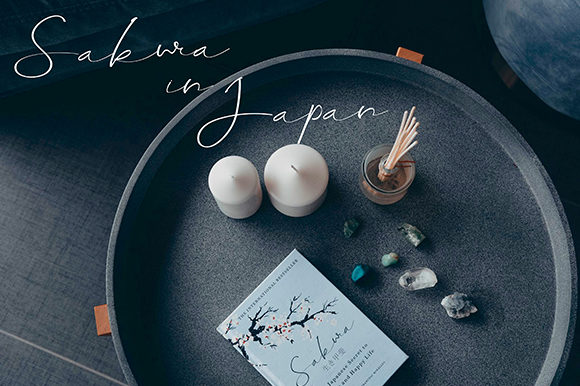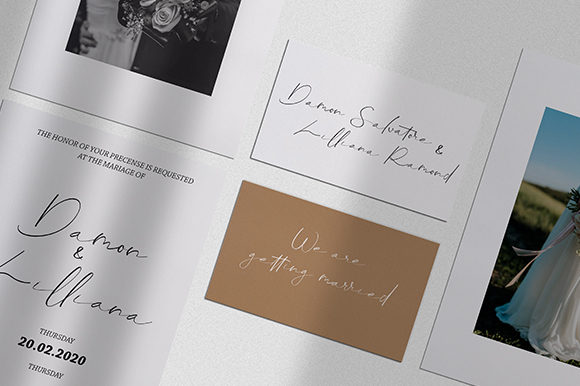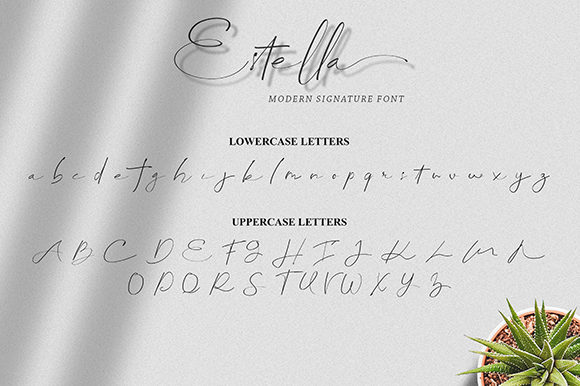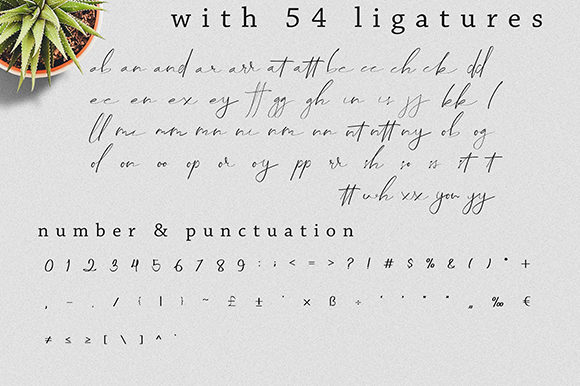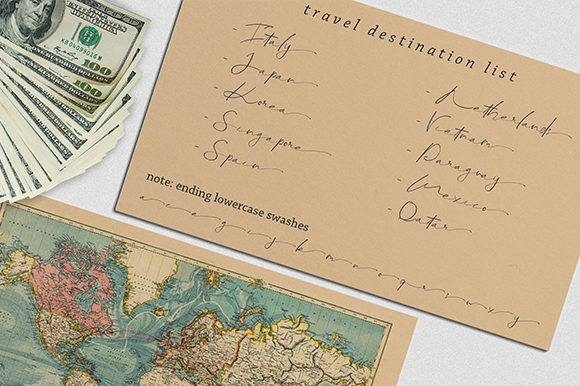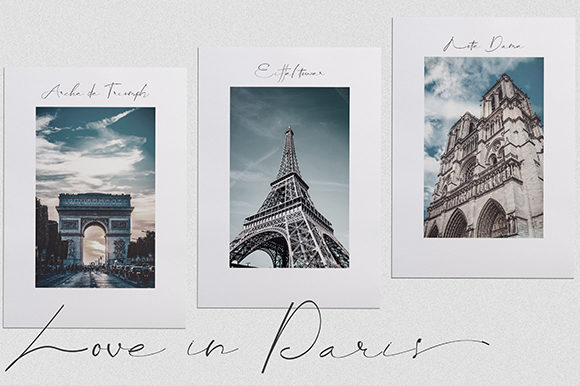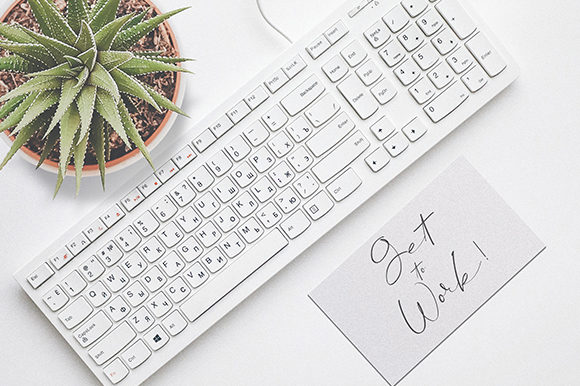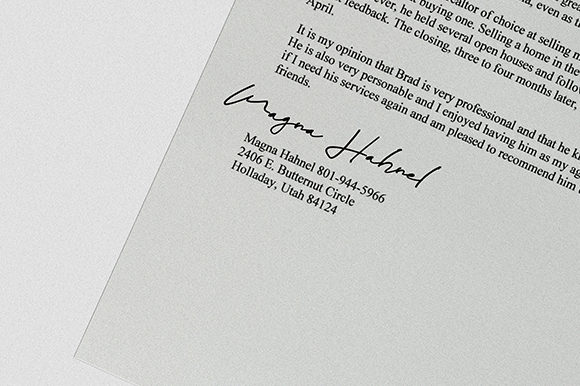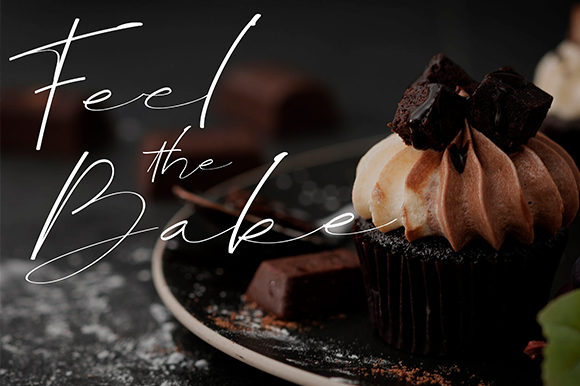
Estella Font
About Estella Font
Estella is a vibrant and beautifully balanced script with a unique feel. Ignite your creativity with this handwritten font in an instant!